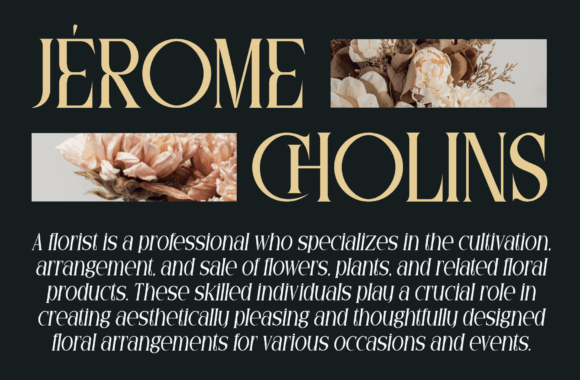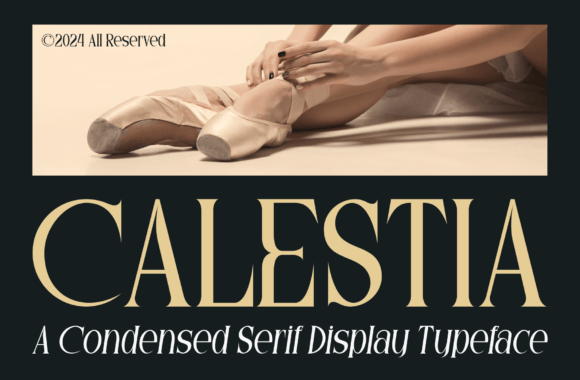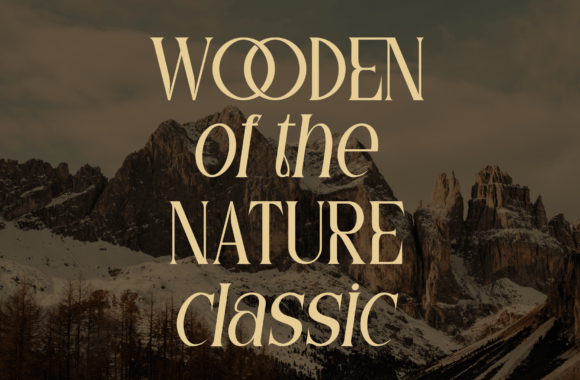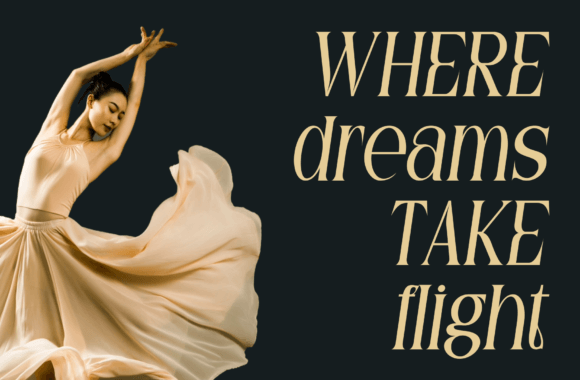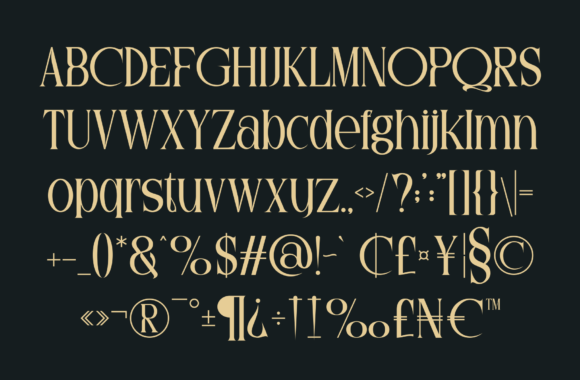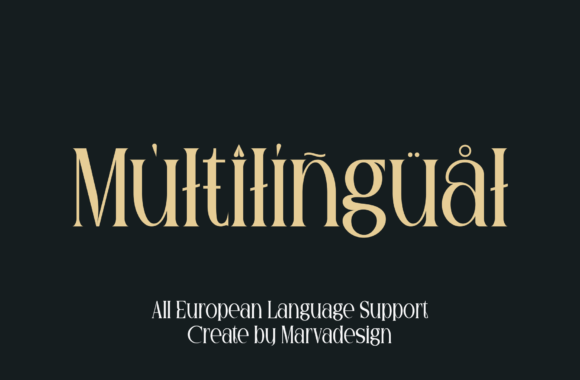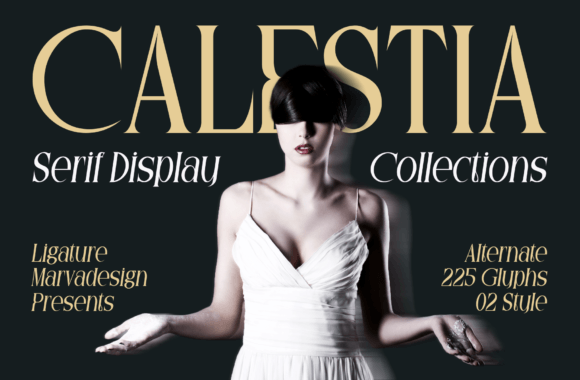
Discover the Elegance of Calestia Font: A Display Condensed Serif for Stunning Headlines
In the world of typography, fonts play a crucial role in conveying messages, evoking emotions, and creating visual identities. For designers and crafters, selecting the right font can make all the difference in their projects. If you’re looking for a font that exudes elegance, sophistication, and attention-grabbing appeal, look no further than Calestia Font. In this article, we’ll explore the characteristics, uses, and benefits of Calestia Font, a Display Condensed Serif typeface that’s perfect for creating stunning headlines and titles.
What is Calestia Font?
Calestia Font is a type of font known as a Display Condensed Serif. This classification means that it has several distinct features:
- Elegant, decorative lines (serifs): Calestia Font features beautiful, ornate serifs at the ends of letters, which add a touch of sophistication and refinement to any text.
- Taller and narrower letters: The letters in Calestia Font are designed to be taller and narrower than usual, making it perfect for creating eye-catching headlines or titles that need to stand out.
Characteristics of Calestia Font
As a Display Condensed Serif font, Calestia Font boasts several characteristics that make it an excellent choice for designers and crafters:
- High visual impact: The combination of elegant serifs and condensed letterforms creates a visually striking effect that’s sure to grab attention.
- Elegance and sophistication: Calestia Font’s refined features evoke a sense of luxury, making it perfect for high-end branding, advertising, and editorial projects.
- Versatility: While Calestia Font excels at creating stunning headlines, it’s also suitable for use in titles, subtitles, and other display text applications.
Uses of Calestia Font
Calestia Font’s unique characteristics make it an excellent choice for a variety of design and crafting applications:
- Headlines and titles: Use Calestia Font to create attention-grabbing headlines, titles, and subtitles that set the tone for your content.
- Branding and advertising: Calestia Font’s elegant, sophisticated feel makes it perfect for high-end branding, advertising, and marketing materials.
- Editorial design: Add a touch of luxury to your editorial projects, such as magazines, newspapers, and books, with Calestia Font’s refined features.
- Digital and print design: Calestia Font is suitable for both digital and print design applications, including websites, social media graphics, and print materials like brochures and posters.
Benefits of Using Calestia Font
By incorporating Calestia Font into your design or crafting projects, you’ll enjoy several benefits:
- Instant visual impact: Calestia Font’s unique features create a stunning visual effect that grabs attention and draws the reader in.
- Enhanced credibility: The elegant, sophisticated feel of Calestia Font can help establish credibility and authority in your brand or message.
- Flexibility: Calestia Font’s versatility makes it suitable for a wide range of design and crafting applications, from digital to print.
Calestia Font is a stunning Display Condensed Serif typeface that’s perfect for creating eye-catching headlines, titles, and display text. With its elegant serifs, condensed letterforms, and high visual impact, Calestia Font is an excellent choice for designers and crafters looking to add a touch of sophistication and luxury to their projects. Whether you’re working on branding, advertising, editorial design, or digital and print materials, Calestia Font is sure to make a lasting impression.